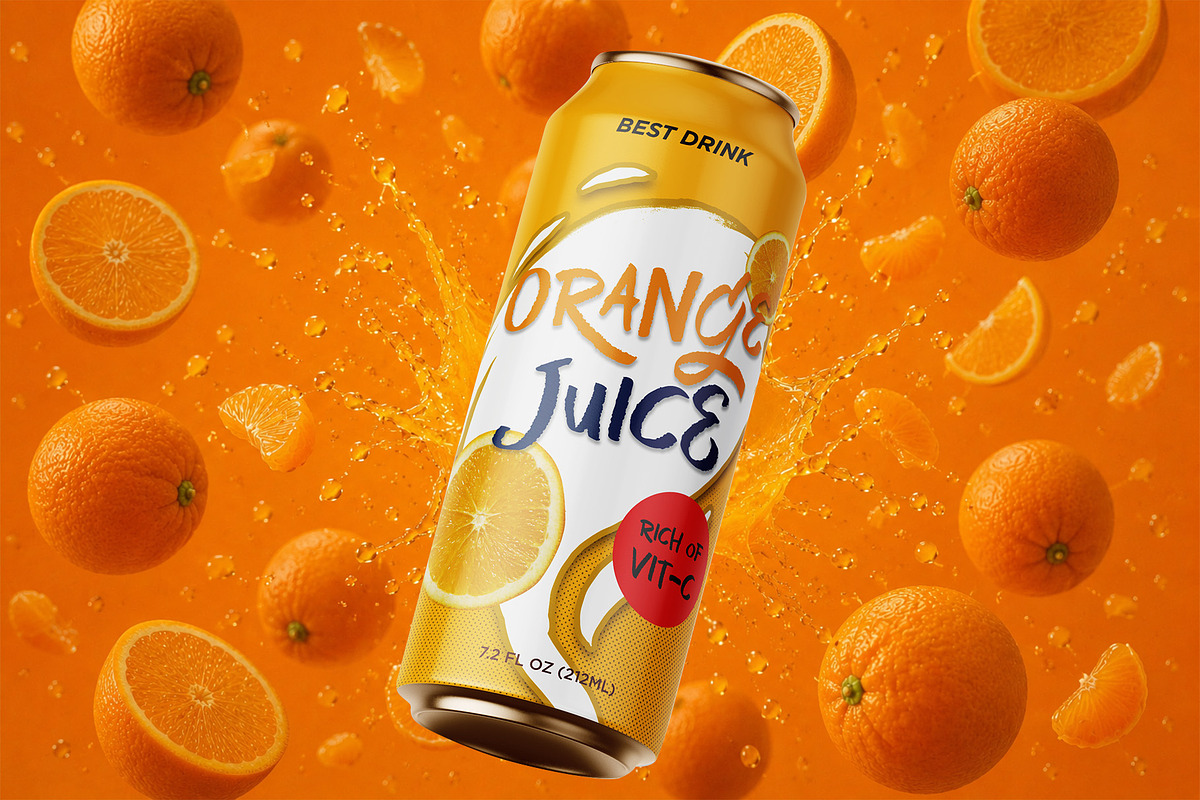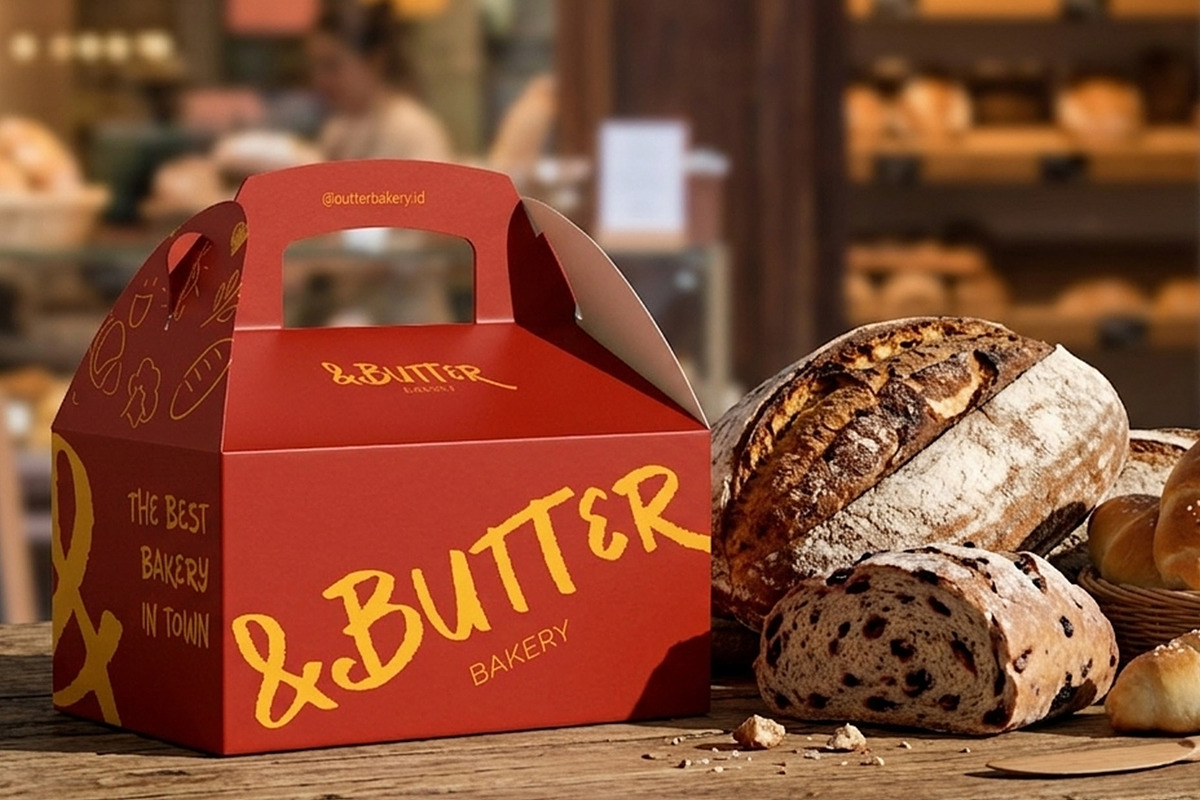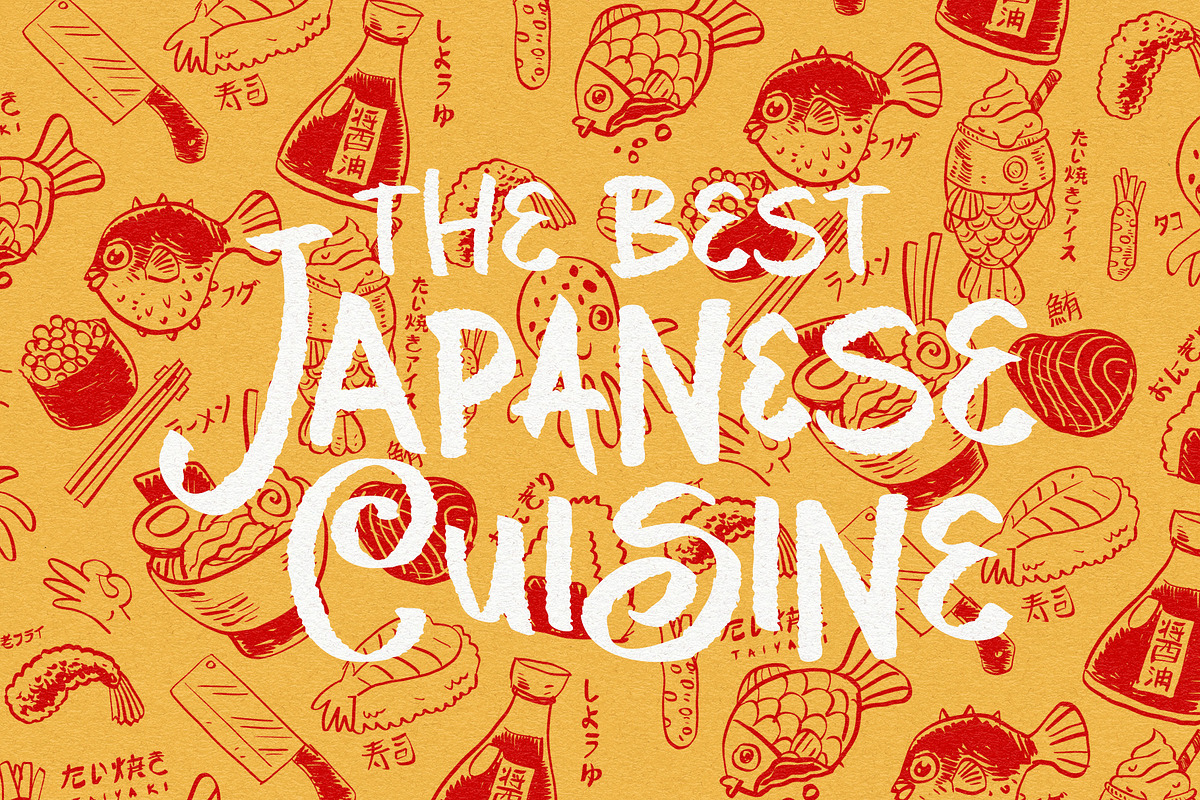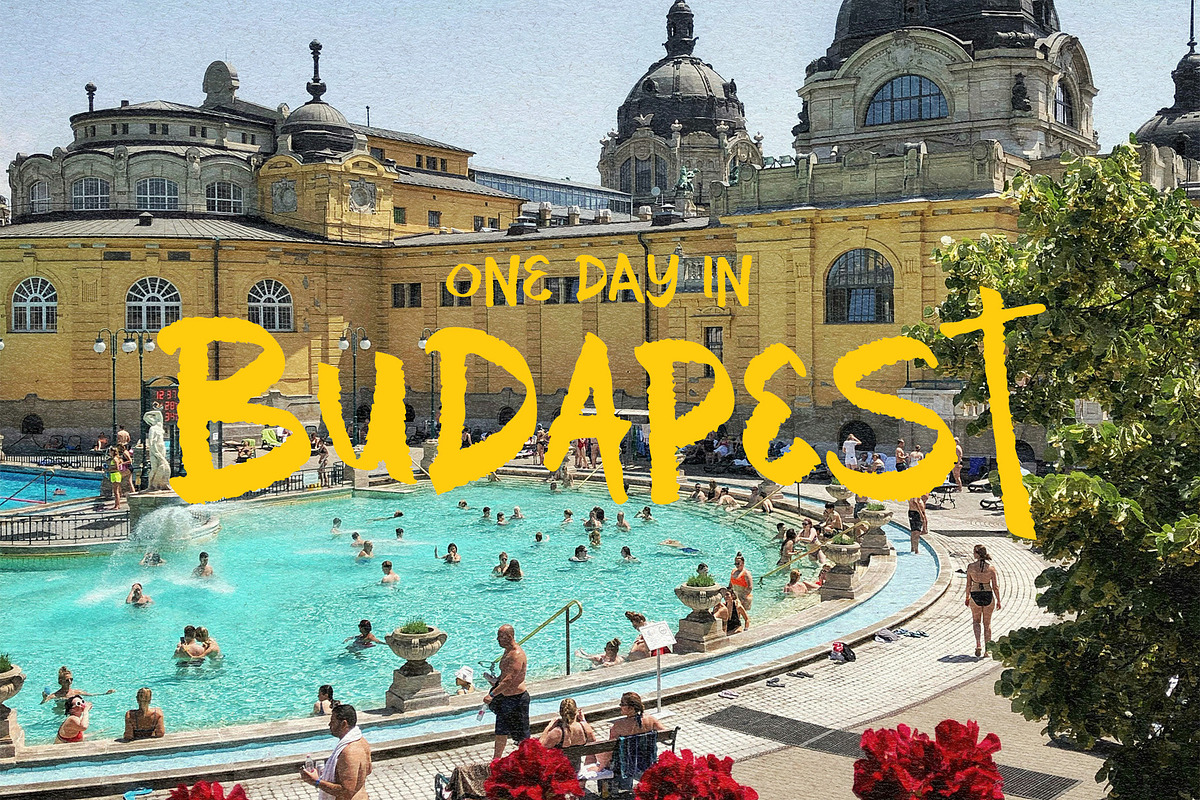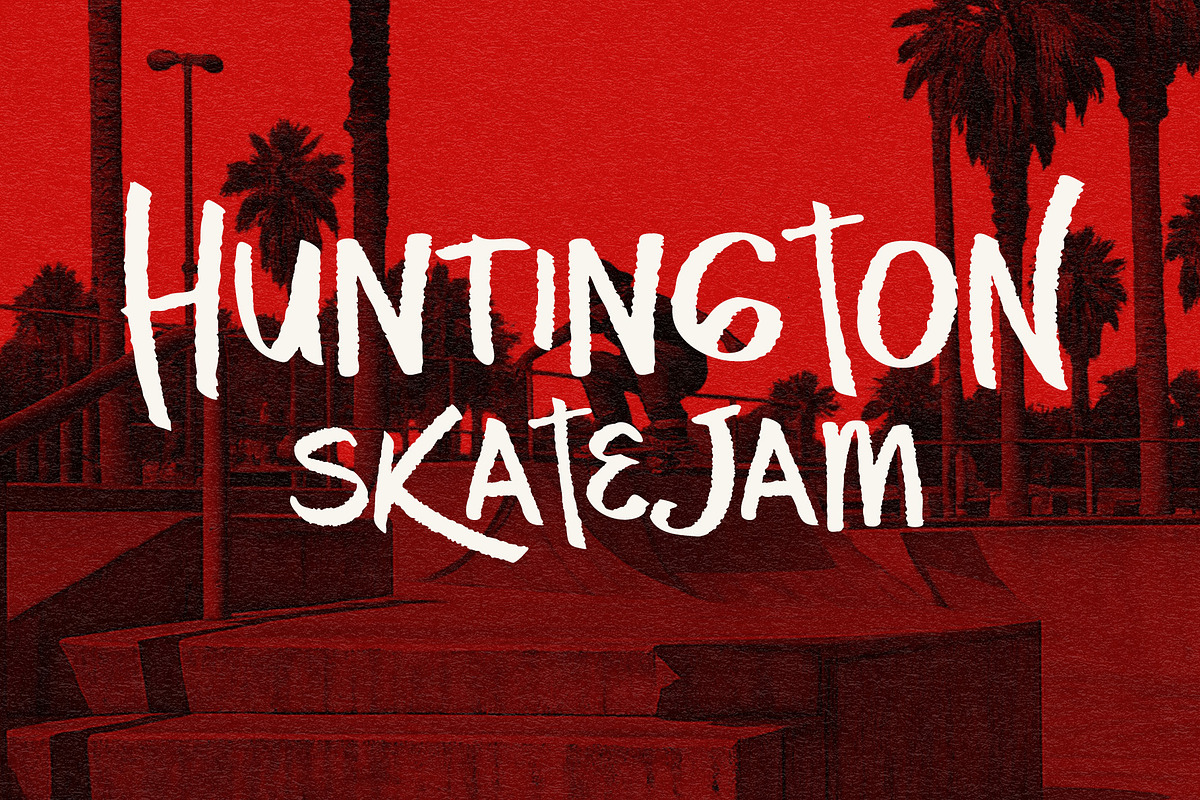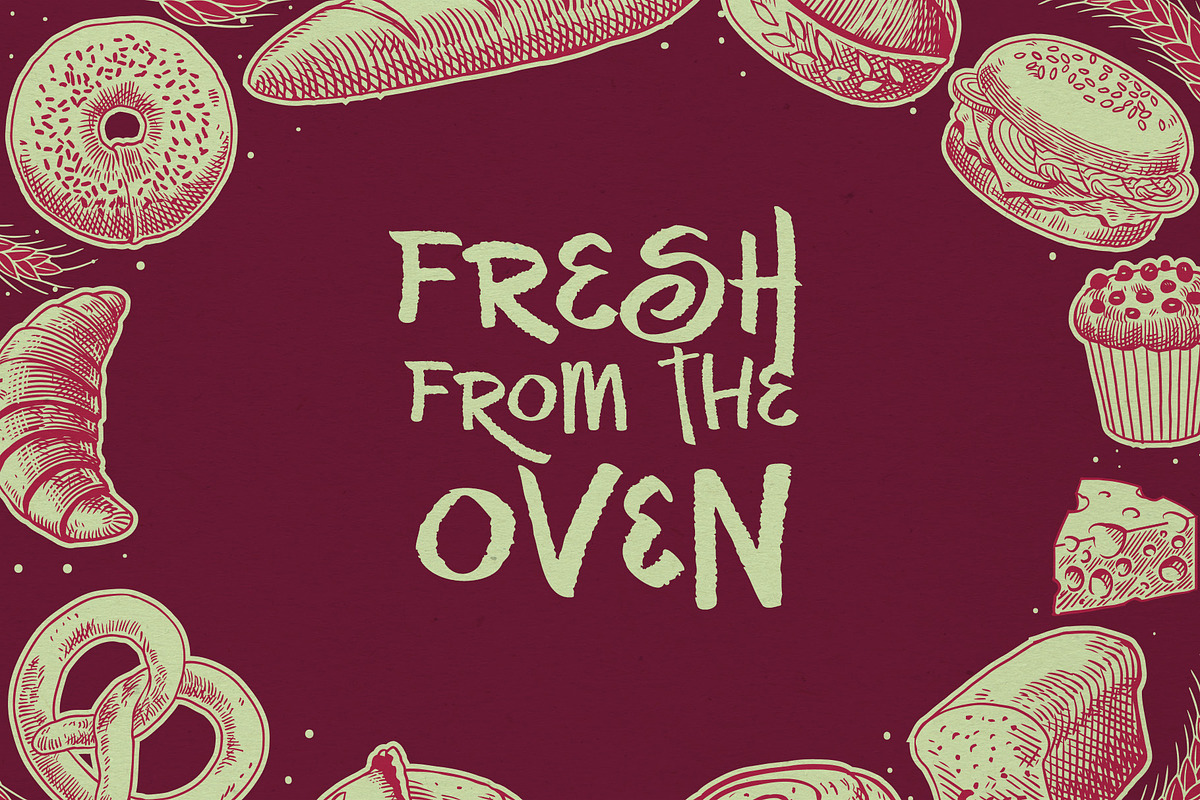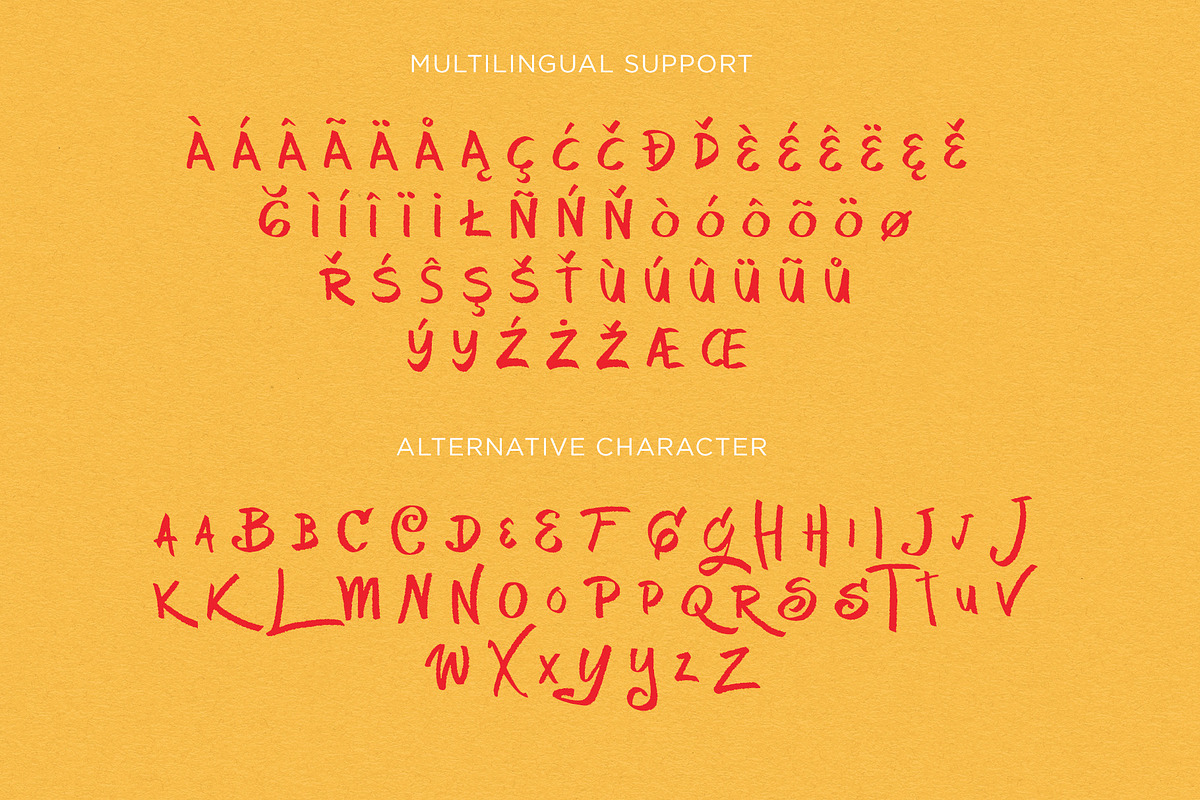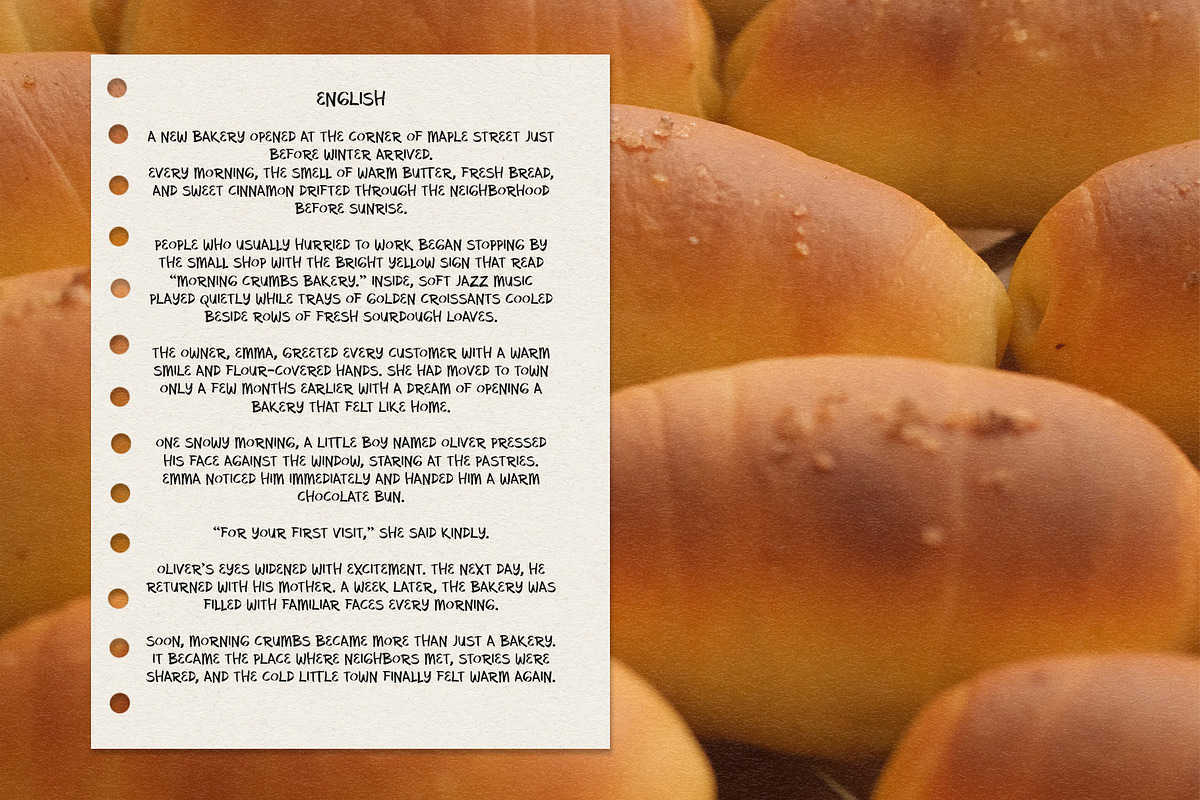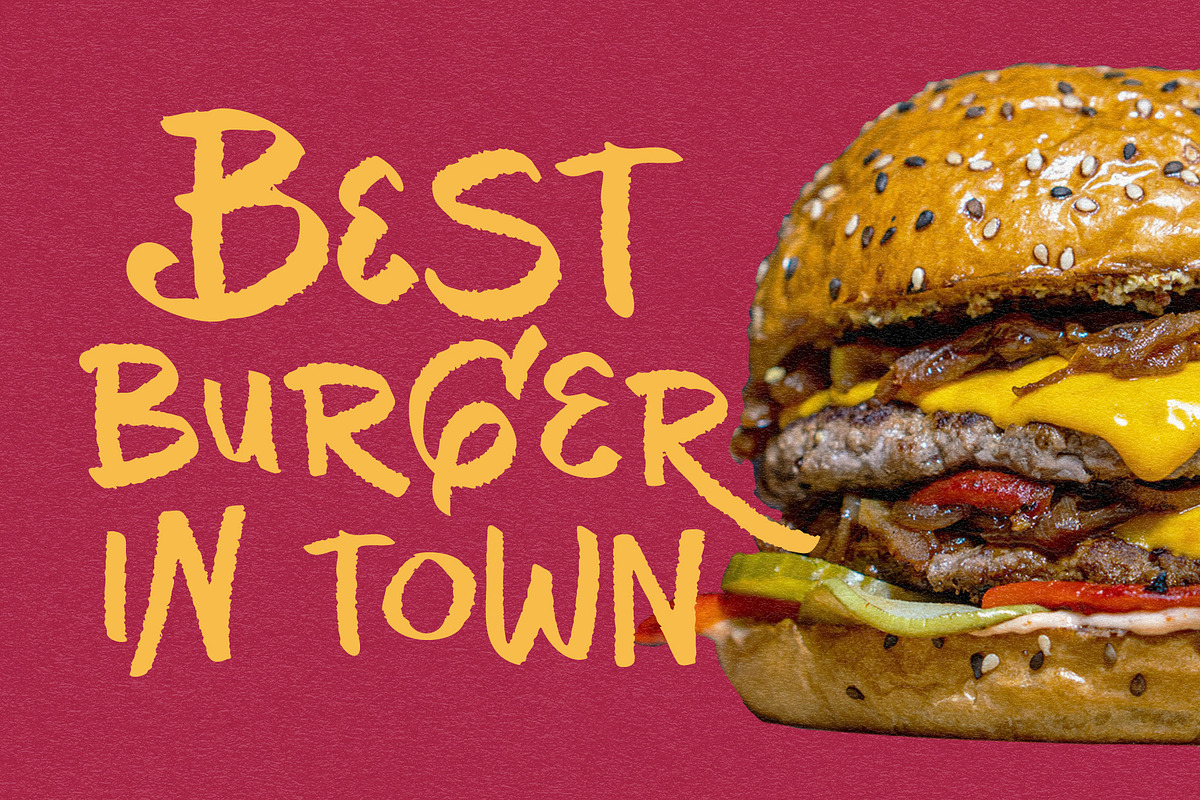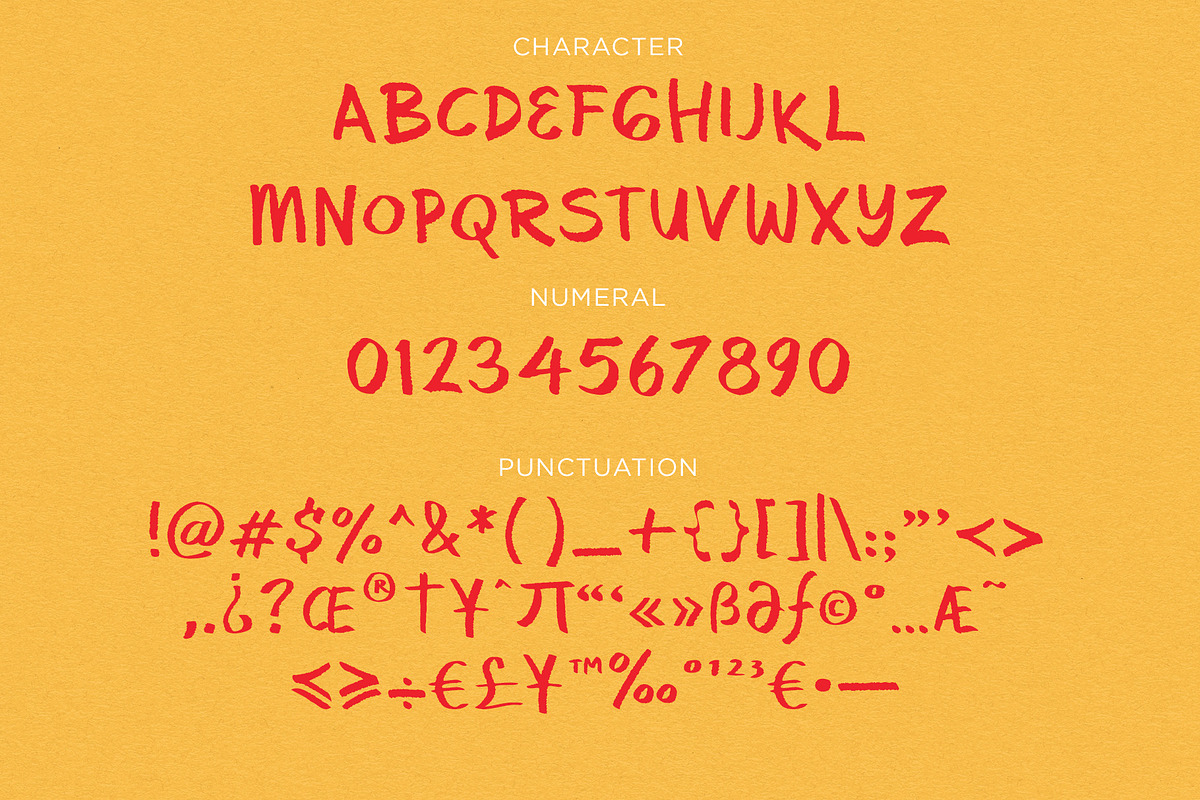
Mugi Mugi Handwritten Font
Say hello to our newest handwritten font!
Playful, dynamic, and beautifully rough around the edges, it’s designed to bring an authentic handmade feel to your work. With tons of alternate characters, you can mix and match letters to create unique, natural-looking typography every time.
Plus, it comes with extensive multilingual support, including French, Spanish, Portuguese, Turkish, German, Polish, and more.
Perfect for branding, packaging, apparel, social media, and any project that needs a little extra personality.